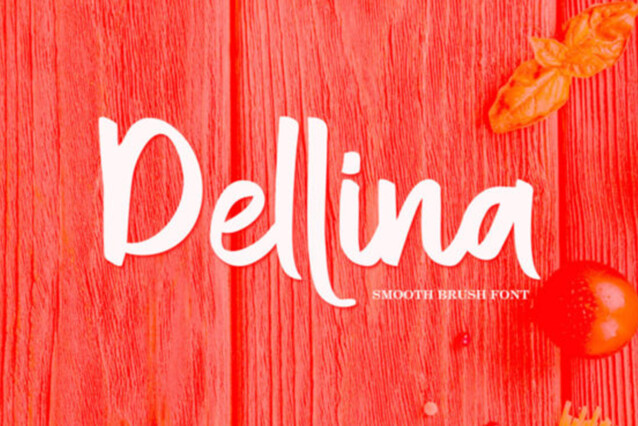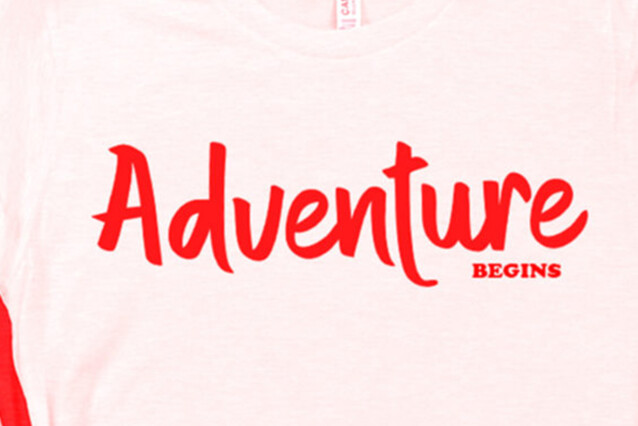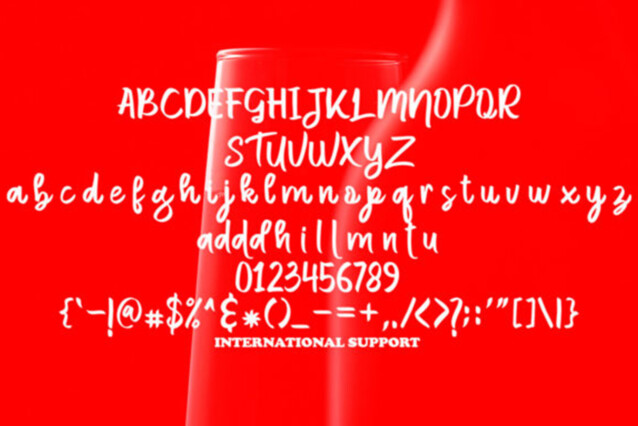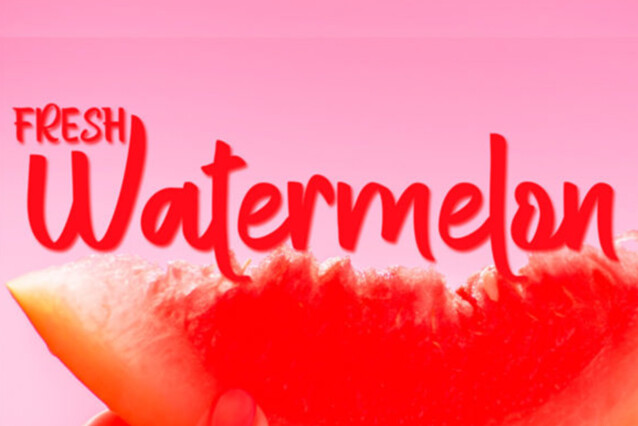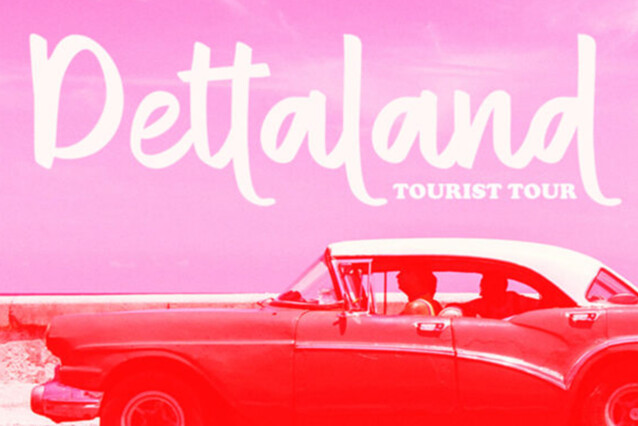
Dellina Font
Dellina Font is a cool, brushed and trendy handwritten font. This font reads as strong, confident, and dynamic and can add tons of stylish character to your designs.